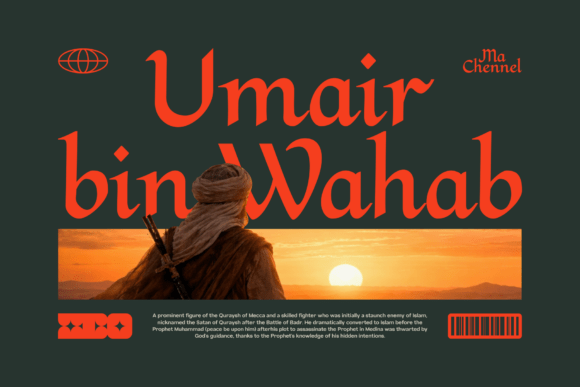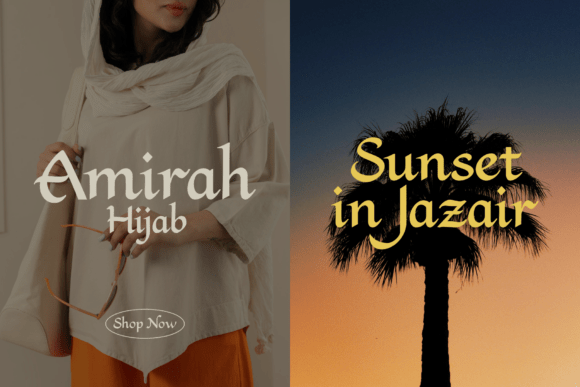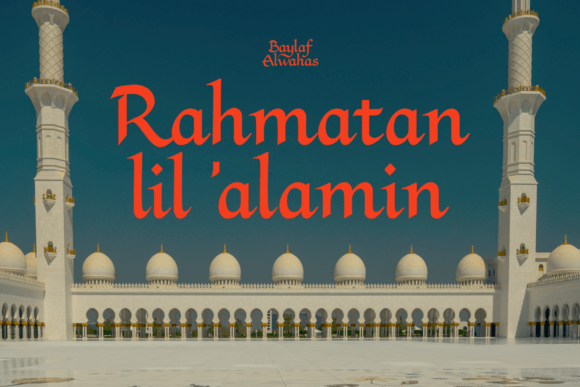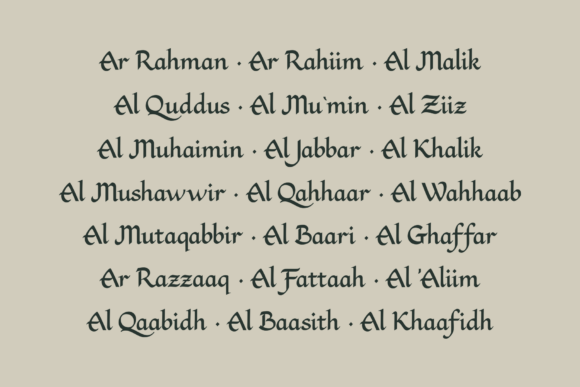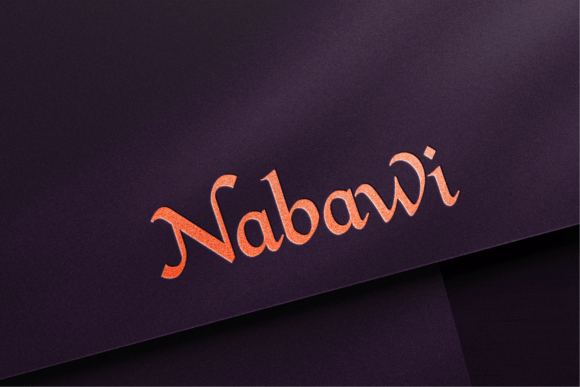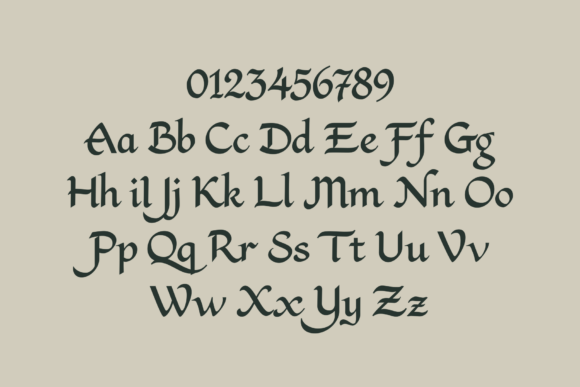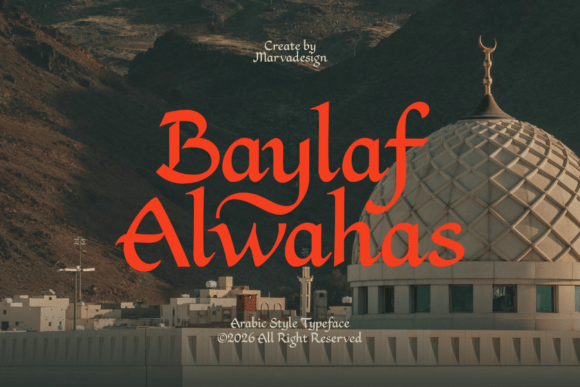
Introducing Baylaf Alwahas: A Majestic Arabic-Style Serif Display Typeface
In the realm of typography, few fonts manage to strike a balance between tradition and modernity as elegantly as Baylaf Alwahas. This Arabic-style serif display typeface is a masterful blend of classical Middle Eastern calligraphic influences with a contemporary serif structure, making it a standout in the world of typography. Whether you’re a designer seeking to infuse your projects with a touch of cultural richness or a crafter looking for the perfect font to convey warmth and heritage, Baylaf Alwahas is sure to captivate.
The Essence of Baylaf Alwahas
Baylaf Alwahas is characterized by its flowing curves, soft yet confident stroke contrast, and distinctive terminal details that evoke the elegance of traditional Arabic scripts. Despite its ornate features, the font remains fully legible in Latin characters, making it a versatile choice for a wide range of design applications. Its letterforms feel expressive and ornamental without being overly decorative, giving the typeface a visually strong and culturally rich presence.
Design Inspiration and Characteristics
The design of Baylaf Alwahas draws inspiration from the rich tradition of Arabic calligraphy, which is renowned for its beauty and expressiveness. The font’s flowing curves and confident stroke contrast are reminiscent of classical Arabic scripts, while its balanced proportions and refined details bring a modern touch. The subtle calligraphic rhythm gives each word a sense of movement and grace, making it perfect for creating visually engaging headlines, titles, and branding materials.
Perfect for Conveying Warmth and Heritage
Baylaf Alwahas is designed to convey warmth, spirituality, and heritage, making it an excellent choice for projects that seek to evoke an Islamic, historical, or Middle Eastern atmosphere. The font performs exceptionally well in headlines, titles, posters, and branding materials, where its elegant and refined features can be showcased to full effect. Whether you’re working on a project that requires a touch of cultural authenticity or simply looking for a font that exudes sophistication and refinement, Baylaf Alwahas is an excellent choice.
- Unique blend of traditional and modern elements: Baylaf Alwahas seamlessly blends classical Middle Eastern calligraphic influences with a contemporary serif structure, making it a standout in the world of typography.
- High legibility: Despite its ornate features, the font remains fully legible in Latin characters, making it a versatile choice for a wide range of design applications.
- Expressive and ornamental letterforms: Baylaf Alwahas’s letterforms feel expressive and ornamental without being overly decorative, giving the typeface a visually strong and culturally rich presence.
- Subtle calligraphic rhythm: The font’s subtle calligraphic rhythm gives each word a sense of movement and grace, making it perfect for creating visually engaging headlines, titles, and branding materials.
- Cultural authenticity: Baylaf Alwahas is designed to convey warmth, spirituality, and heritage, making it an excellent choice for projects that seek to evoke an Islamic, historical, or Middle Eastern atmosphere.
Applications and Use Cases
Baylaf Alwahas is a versatile font that can be used in a wide range of design applications, including:
- Headlines and titles: The font’s elegant and refined features make it perfect for creating visually engaging headlines and titles.
- Posters and branding materials: Baylaf Alwahas performs exceptionally well in posters and branding materials, where its elegant and refined features can be showcased to full effect.
- Islamic and historical designs: The font’s cultural authenticity and traditional influences make it an excellent choice for designs that seek to evoke an Islamic, historical, or Middle Eastern atmosphere.
- Packaging and advertising: Baylaf Alwahas can be used in packaging and advertising materials to add a touch of sophistication and refinement.
Baylaf Alwahas is a majestic Arabic-style serif display typeface that offers a unique blend of traditional and modern elements. Its elegant and refined features make it perfect for creating visually engaging headlines, titles, and branding materials, while its cultural authenticity and traditional influences make it an excellent choice for designs that seek to evoke an Islamic, historical, or Middle Eastern atmosphere. Whether you’re a designer or crafter, Baylaf Alwahas is sure to captivate and inspire.